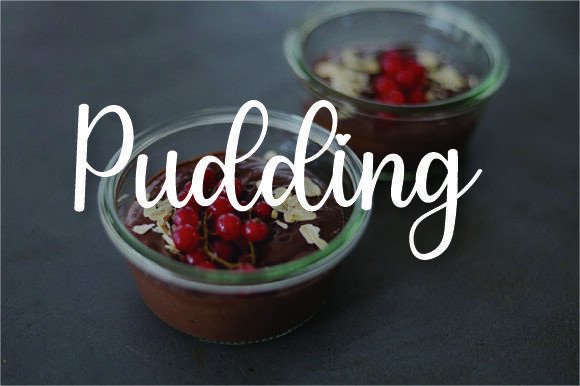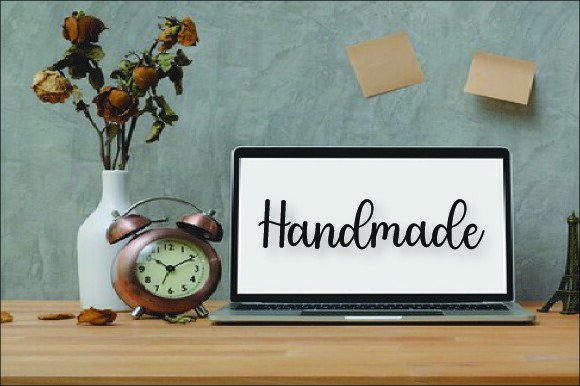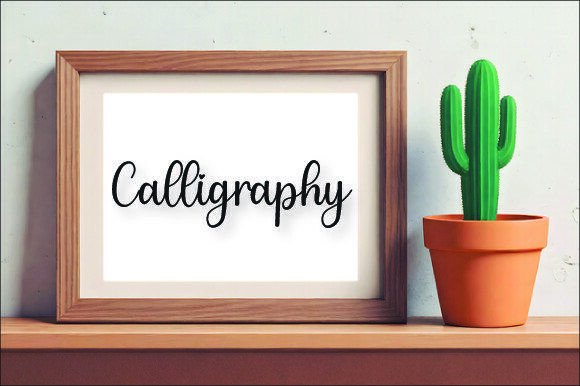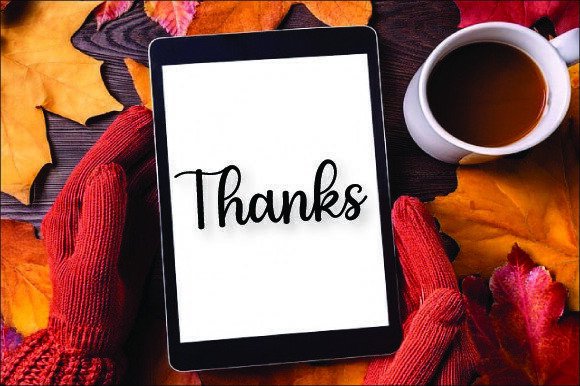
Brian Font: The Sweet and Elegant Handwritten Font for Your Design Needs
Are you looking for a font that can add a touch of elegance and romance to your designs? Look no further than the Brian Font, a sweet and cursive handwritten font that is perfect for a variety of design projects. In this article, we’ll take a closer look at the Brian Font, its features, and how you can use it to elevate your designs.
What is Brian Font?
Brian Font is a beautiful, handwritten font that is designed to add a touch of joy and romance to your designs. Its gentle and cursive strokes make it perfect for a wide range of design projects, from branding and logos to wedding materials, greeting cards, and more.
Key Features of Brian Font
• Sweet and Cursive Handwritten Style: Brian Font features a beautiful, cursive handwritten style that is both elegant and casual.
• Versatile: This font is perfect for a variety of design projects, including branding, logos, wedding materials, greeting cards, fashion, lookbooks, marketing promotions, and more.
• Elegant and Casual: Brian Font strikes the perfect balance between elegance and casualness, making it perfect for designs that need to look fancy and sophisticated, yet still approachable.
Use Cases for Brian Font
Brian Font is a versatile font that can be used in a variety of design projects. Here are some use cases where Brian Font can shine:
• Branding and Logos: Use Brian Font to create a beautiful and elegant logo for your brand. Its cursive strokes and sweet style make it perfect for businesses that want to look professional and sophisticated.
• Wedding Materials: Brian Font is perfect for wedding designs, including invitations, save-the-date cards, and wedding stationery. Its romantic and elegant style will add a touch of sophistication to your wedding designs.
• Greeting Cards: Use Brian Font to create beautiful and heartfelt greeting cards for special occasions, such as birthdays, anniversaries, and holidays.
• Fashion and Lookbooks: Brian Font is perfect for fashion designs, including lookbooks, catalogs, and marketing promotions. Its elegant and casual style makes it perfect for showcasing fashion products.
Why Choose Brian Font?
There are many fonts available that offer a similar style to Brian Font, but here are some reasons why you should choose Brian Font for your design needs:
• Unique Style: Brian Font has a unique and distinctive style that sets it apart from other fonts. Its cursive strokes and sweet style make it perfect for designs that need to look elegant and sophisticated.
• Easy to Read: Brian Font is easy to read, even in small sizes, making it perfect for designs that need to be legible.
• High-Quality: Brian Font is a high-quality font that is designed to look great in any design project.
Tips for Using Brian Font
Here are some tips for using Brian Font in your design projects:
• Pair with Other Fonts: Brian Font pairs well with other fonts, including sans-serif fonts and serif fonts. Experiment with different font combinations to find the perfect pairing for your design.
• Use in Large and Small Sizes: Brian Font looks great in both large and small sizes, making it perfect for designs that need to be legible.
• Experiment with Colors: Brian Font looks great in a variety of colors, including pastel colors, bold colors, and neutral colors. Experiment with different colors to find the perfect look for your design.
Author AA studio
Brian Font is a beautiful and elegant handwritten font that is perfect for a variety of design projects. Its sweet and cursive style makes it perfect for designs that need to look elegant and sophisticated, yet still approachable. With its versatility, high-quality design, and ease of use, Brian Font is a great choice for designers and crafters looking to elevate their designs.
Whether you’re designing a logo, wedding materials, greeting cards, or fashion designs, Brian Font is a great choice. Its unique style, ease of use, and high-quality design make it perfect for any design project. So why not give Brian Font a try and see how it can elevate your designs?